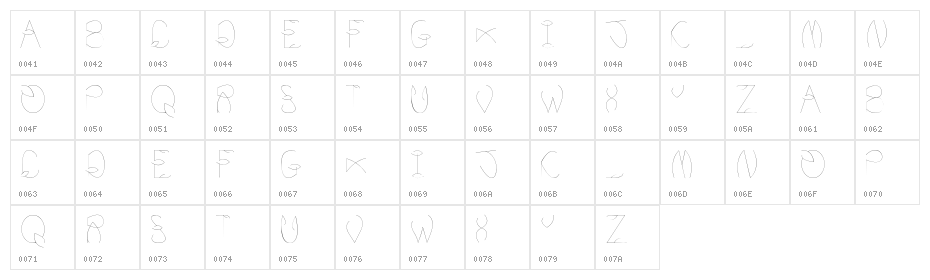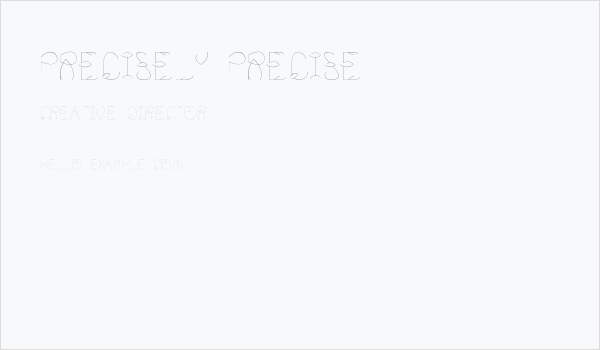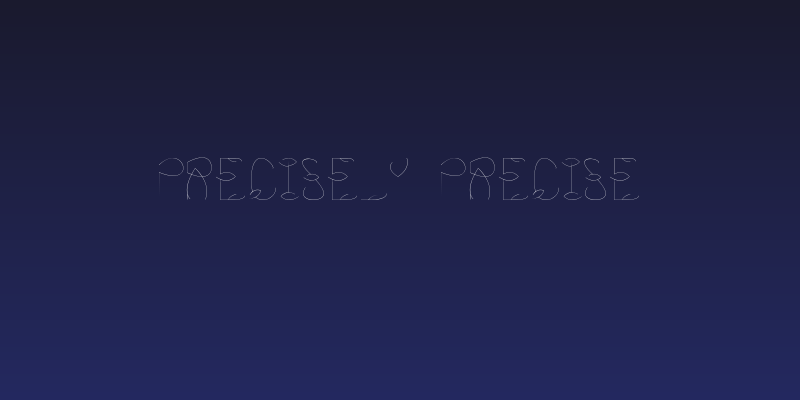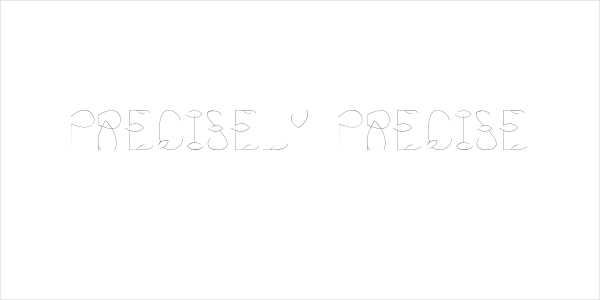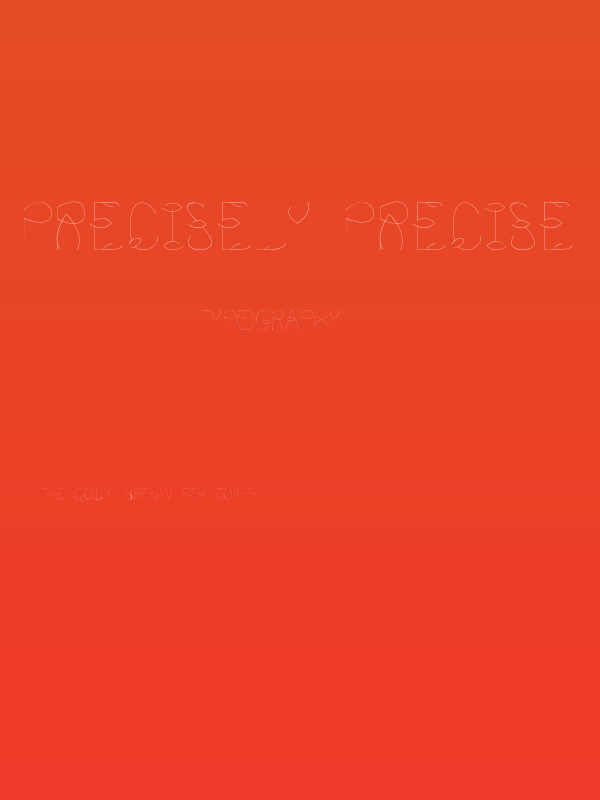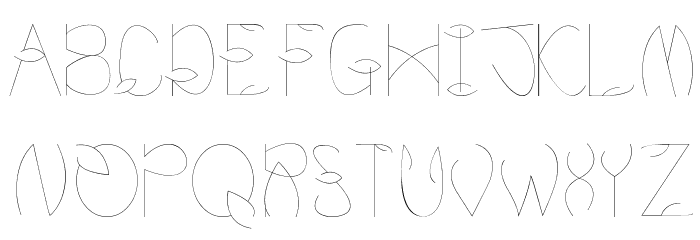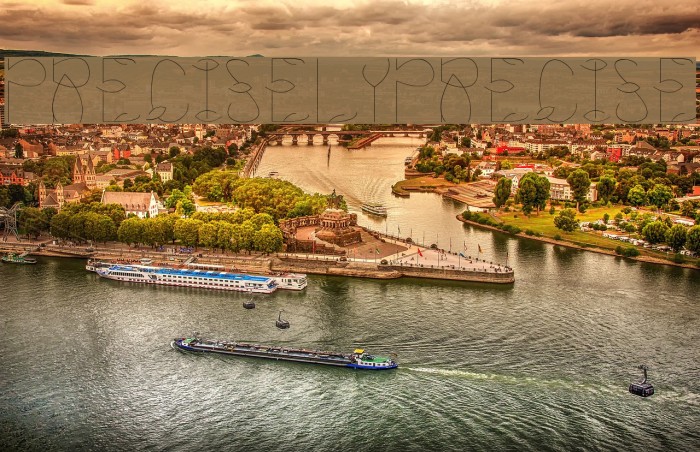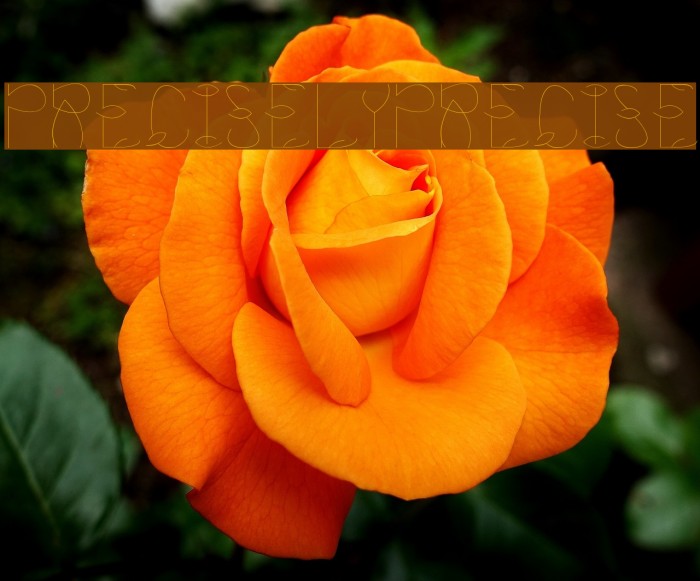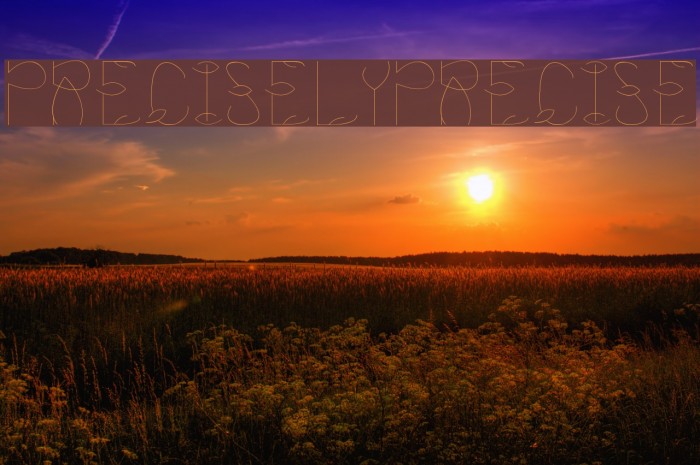
Precisely Precise Font
Precisely Precise Description
This font features a unique and artistic design, characterized by its thin, delicate lines and abstract, geometric shapes. The letters exhibit a modern and minimalistic style, with a focus on curves and angles that create a sense of movement and fluidity. The uppercase and lowercase letters maintain a consistent aesthetic, with each character displaying a distinct personality while remaining cohesive as a set. The numbers and special characters follow the same design principles, ensuring uniformity across all elements. This font's elegance and creativity make it suitable for projects that require a touch of sophistication and innovation.
| Proposed Projects | Ideal for branding, logos, modern art projects, and editorial design. |